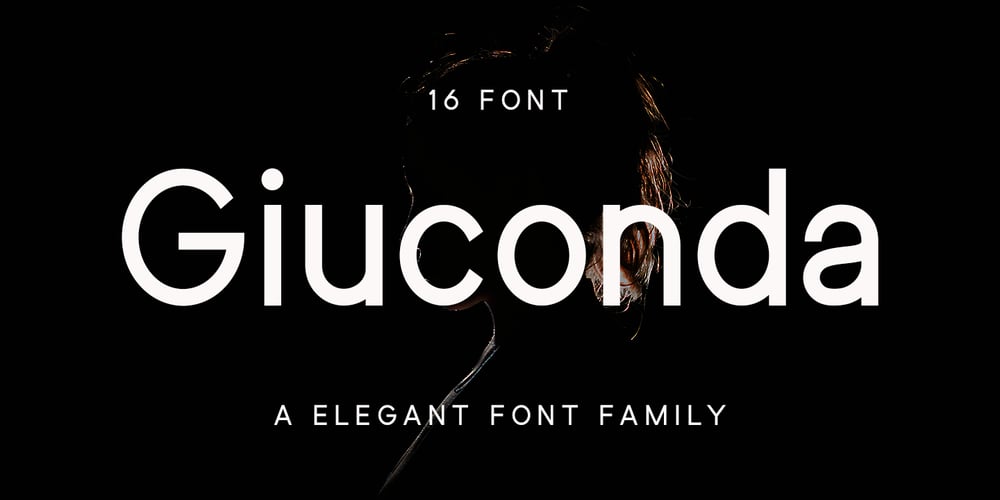
Giuconda
Giuconda font
Giuconda Font Family was designed by Saiful Anwar and published by Sealoung. Giuconda contains 16 styles and family package options. Giuconda is an elegant and modern sans font. This font provides a cleaner, more geometric look, preserving the essence and structure of an early 20th century sans classic font but with a fresh, clean and contemporary look.Giuconda consists of two subfamilies of 8 weights, ranging from Thin to Heavy, with matching italics, giving a total of 16 fonts.Giuconda is the perfect font for publishing, titles, books, magazines, and corporate designs. Its Alt version is ideal for logo types, branding, packaging, and use on the web and TV. The family contains a 355 character set that supports 207 different languages.